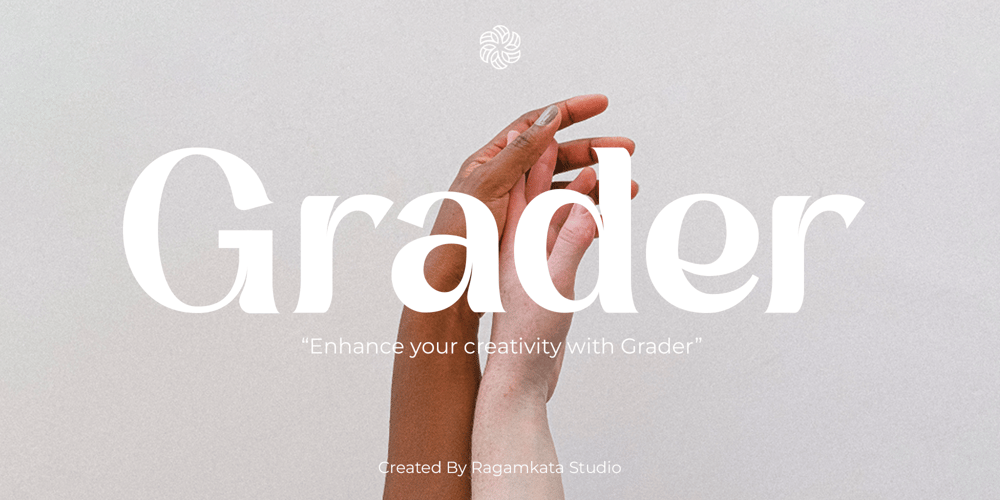
Grader
Grader font
Grader Font Family was designed by Yogiswhara Dio Prakoso Riadi and published by RagamKata. Grader contains 1 styles and family package options. Grader is Modern Display Font. This typeface is perfect for an headlines, classy editorial design, magazine, fashion brand , cosmetic brand, fashion promotion , modern advertising design, invitation card, art quote, home decoration , book/cover titles, special events, and much more.Grader Features:• Uppercase & Lowercase• Alternates• Numerals & Punctuation• Accented characters• Multilingual Support• Unicode PUA EncodedWhile using this product, if you encounter any problem or spot something we may have missed, please don’t hesitate to drop us a message. We’d love to hear your feedbacks in order to further fine-tune our products. Thanks and have a wonderful day .